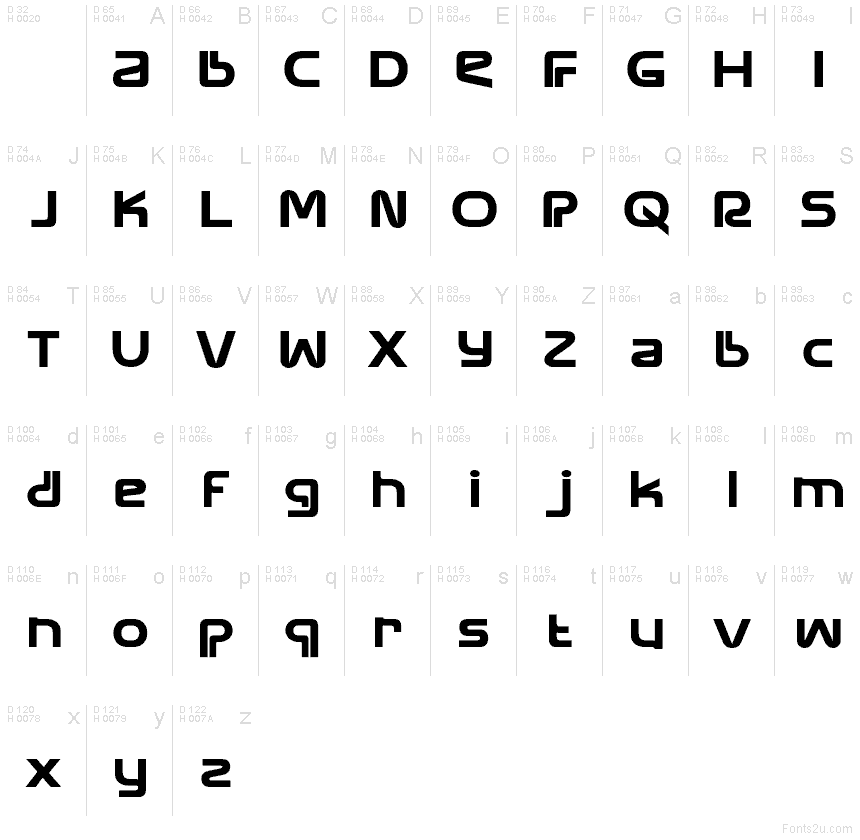
CS Vision Regular Demo
CS Vision font by Craft Supply Co. is a futuristic display font with bold weight and expanded width. The free typeface has geometric influences that result in a streamlined appearance, elegant modern design, balanced proportions, and an overall futuristic feel.
Use this font for movie titles, video games text, book covers, science-related projects, classic event invitations or posters, apparel designs like t-shirts or pins and badges, packages and branding of technology products or all sorts of card design ideas.